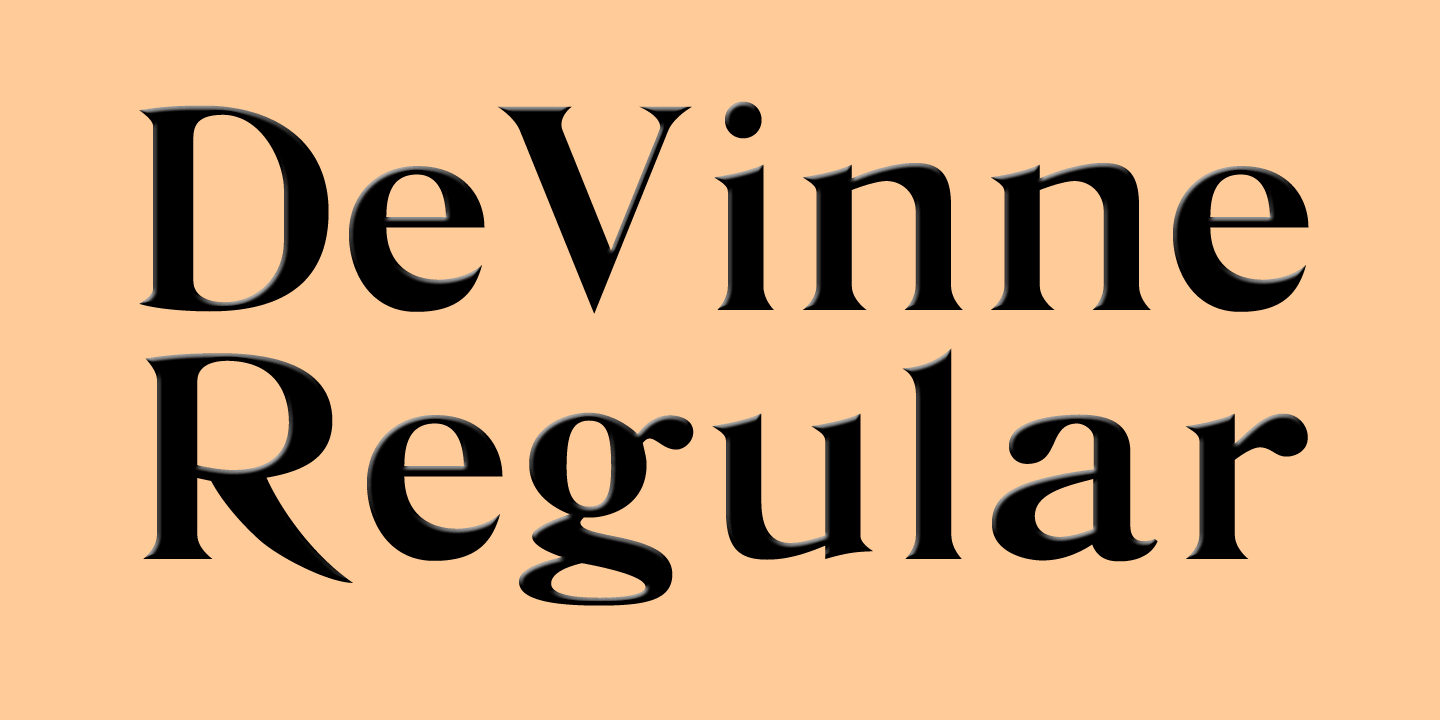
Designed by Gustav F. Schroeder, De Vinne is a display serif font published by Wooden Type Fonts.
A revival of one of the popular wooden type fonts of the 19th century; suitable for text.